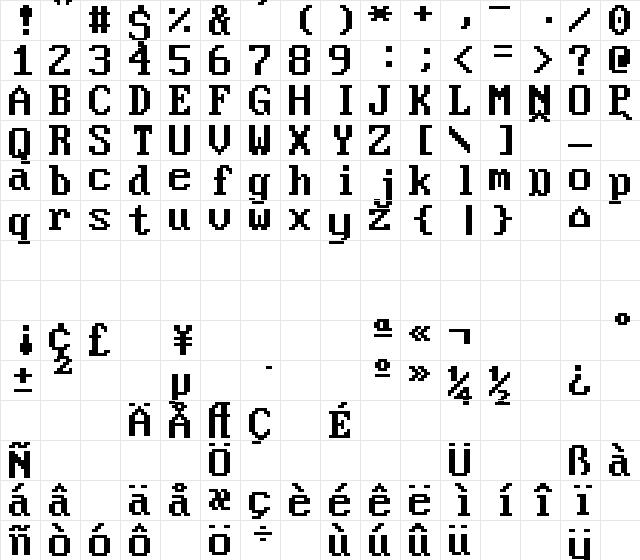
Perfect DOS VGA 437 Win Regular
| Foundry | zeh |
| Designer | http://www.fatorcaos.com.br |
Design Context for Perfect DOS VGA 437 Win Typeface
Perfect DOS VGA 437 Win is a composed and adaptable typeface that performs quietly and consistently across a wide range of design contexts.